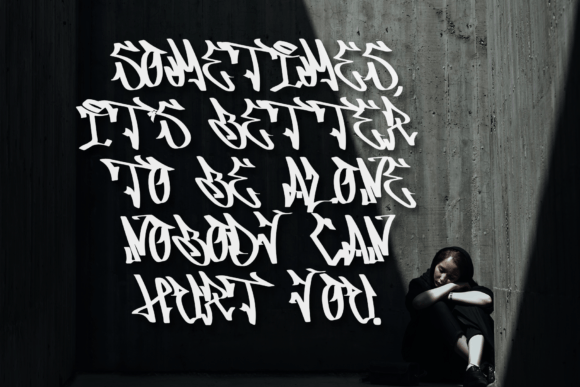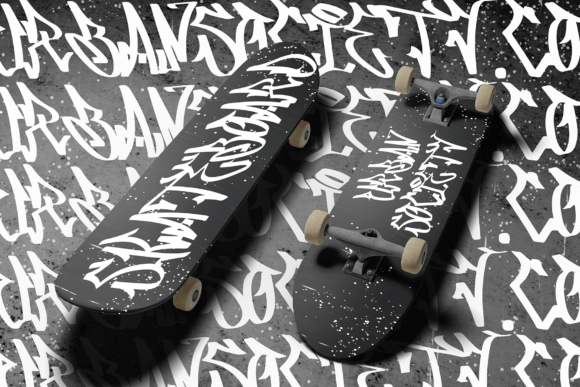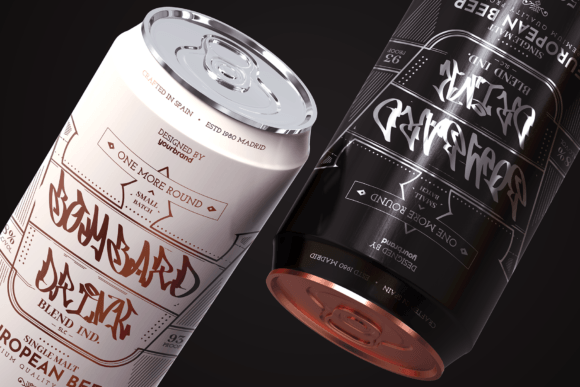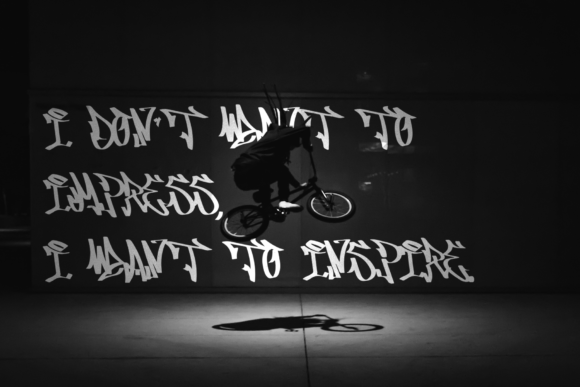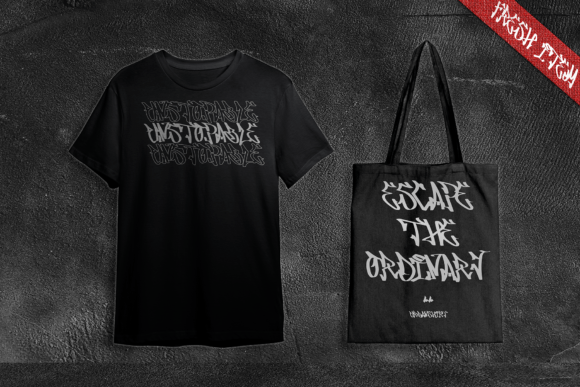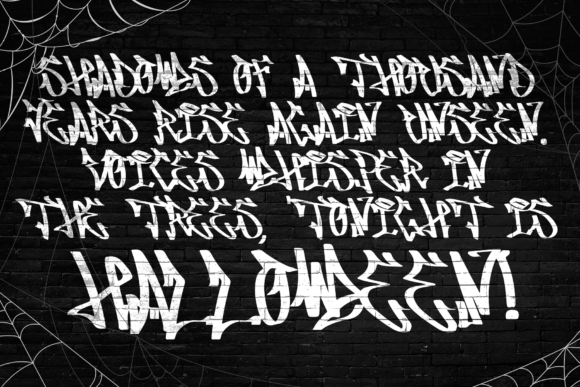
Introducing Bankai Street Font: The Ultimate Graffiti-Style Handwritten Font
Are you a designer, craftor, or simply a font enthusiast looking for a cool and modern addition to your font library? Look no further than Bankai Street Font! This graffiti-style handwritten font is the perfect asset to enhance any creation, regardless of the topic or project. In this article, we’ll dive into the world of Bankai Street Font, exploring its features, benefits, and uses.
What is Bankai Street Font?
Bankai Street Font is a unique and stylish handwritten font that embodies the spirit of modern graffiti. Its cool and edgy design makes it perfect for a wide range of applications, from creative projects to commercial designs. The font’s graffiti-style aesthetic adds a touch of urban flair to any design, making it stand out from the crowd.
Key Features of Bankai Street Font
- Graffiti-style design: Bankai Street Font boasts a distinctive graffiti-style design that adds a modern and edgy touch to any project.
- Handwritten feel: The font’s handwritten feel gives it a personal and organic look, making it perfect for designs that require a human touch.
- Modern and cool: Bankai Street Font is a cool and modern font that’s perfect for designs that require a fresh and contemporary look.
- Versatile: The font is versatile and can be used for a wide range of applications, from creative projects to commercial designs.
Benefits of Using Bankai Street Font
So, why should you choose Bankai Street Font for your next project? Here are just a few benefits of using this amazing font:
- Enhance your designs: Bankai Street Font has the potential to enhance any creation, adding a touch of style and sophistication.
- Stand out from the crowd: The font’s unique graffiti-style design makes it stand out from the crowd, ensuring your designs get noticed.
- Perfect for creative projects: Bankai Street Font is perfect for creative projects, such as art, design, and craft.
Uses of Bankai Street Font
Bankai Street Font is a versatile font that can be used for a wide range of applications, including:
- Graphic design: Use Bankai Street Font to create stunning graphic designs, such as posters, flyers, and brochures.
- Art and craft: The font is perfect for art and craft projects, such as handmade cards, scrapbooking, and DIY crafts.
- Digital design: Bankai Street Font can be used for digital designs, such as social media graphics, blog posts, and website headers.
- Advertising and marketing: The font is also suitable for advertising and marketing materials, such as billboards, magazine ads, and product packaging.
Tips for Using Bankai Street Font
Here are a few tips for using Bankai Street Font:
- Experiment with different colors: Try pairing Bankai Street Font with different colors to create stunning designs.
- Mix and match with other fonts: Combine Bankai Street Font with other fonts to create unique and interesting typography.
- Use it for headlines and titles: Bankai Street Font is perfect for headlines and titles, adding a touch of style and sophistication.
In conclusion, Bankai Street Font is a cool and modern graffiti-style handwritten font that’s perfect for designers, craftors, and font enthusiasts. Its unique design, versatility, and range of uses make it a valuable asset to any font library. Whether you’re working on a creative project or commercial design, Bankai Street Font is sure to enhance your creations and help you stand out from the crowd.